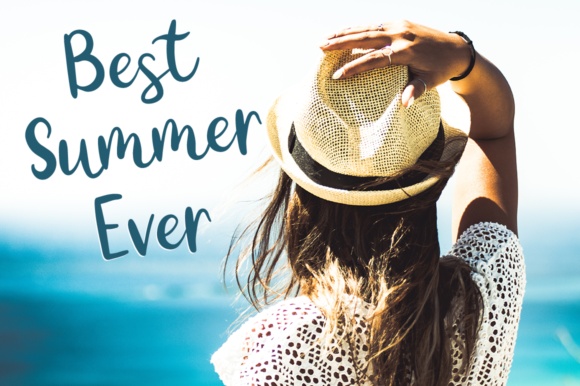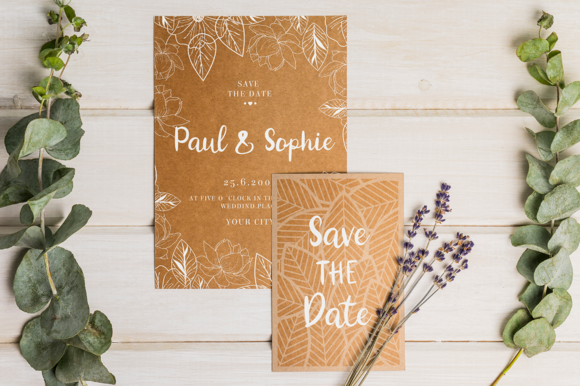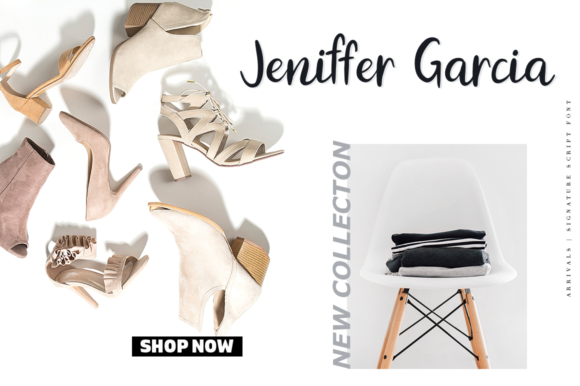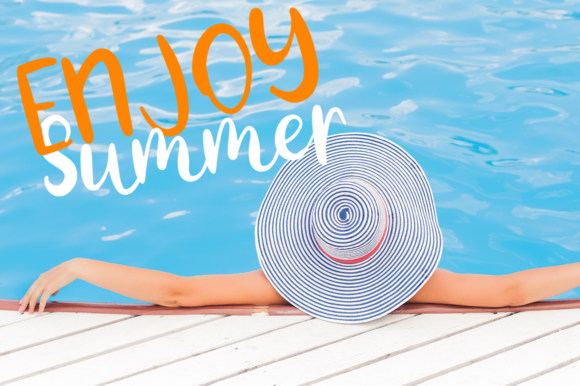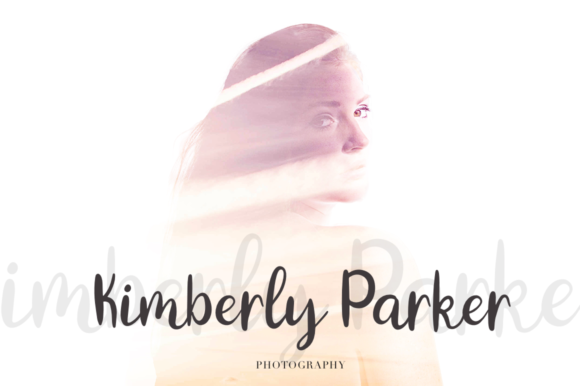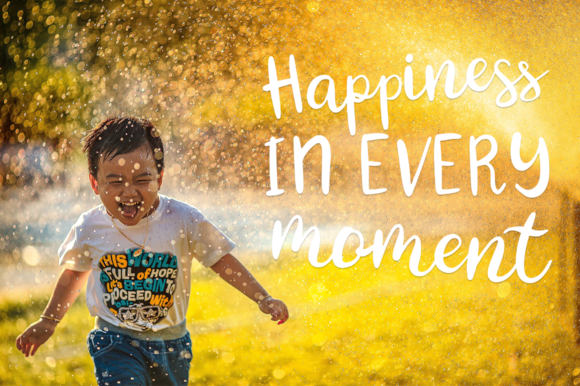
The Designer’s Delight: A Deep Dive into Arrivals Font
I still remember the frustration of working on a branding project, only to hit a roadblock when searching for the perfect font. My client wanted something fresh, yet elegant; something that would make their brand stand out. That’s when I stumbled upon Arrivals, a beautiful handmade calligraphy font that instantly caught my eye. In this article, I’ll share my experience with Arrivals, its features, and how to make the most of it in your designs.
First Impressions: A Review of Arrivals Font
Arrivals is a stunning addition to any design project, and here’s what I love about it:
- ✨ Clean and Unique Style: Arrivals boasts a crisp, modern aesthetic that’s perfect for branding, packaging, and more.
- ✅ Handmade Calligraphy Feel: The font’s handmade nature gives it a personal touch, making it ideal for projects that require a human feel.
- 💫 Highly Versatile: Arrivals can be used for a wide range of projects, from logos and titles to quotes and phrases.
While Arrivals is an excellent font, it’s not without its quirks:
- 🤔 Limited Character Set: Some users might find the character set a bit limited, especially when compared to more extensive font libraries.
- ⚠️ Requires OpenType Support: To take full advantage of Arrivals’ features, you’ll need to use it in software that supports OpenType fonts.
The Story Behind Arrivals Font
Arrivals was designed with the intention of creating a fresh, yet elegant font that would bring a personal touch to any project. Inspired by the beauty of handmade calligraphy, the designer aimed to craft a font that would be both versatile and unique. With its clean lines and modern aesthetic, Arrivals is the perfect addition to any design library.
| Font Name | Arrivals Font |
| Author | Pasha Larin |
| What type of projects is Arrivals best suited for? | Arrivals is ideal for branding, packaging, logos, titles, quotes, and phrases. |
| Does Arrivals support OpenType features? | Yes, Arrivals supports OpenType features, including glyphs and stylistic alternates. |
| Is Arrivals available in different weights or styles? | Currently, Arrivals is available in a single weight and style. |